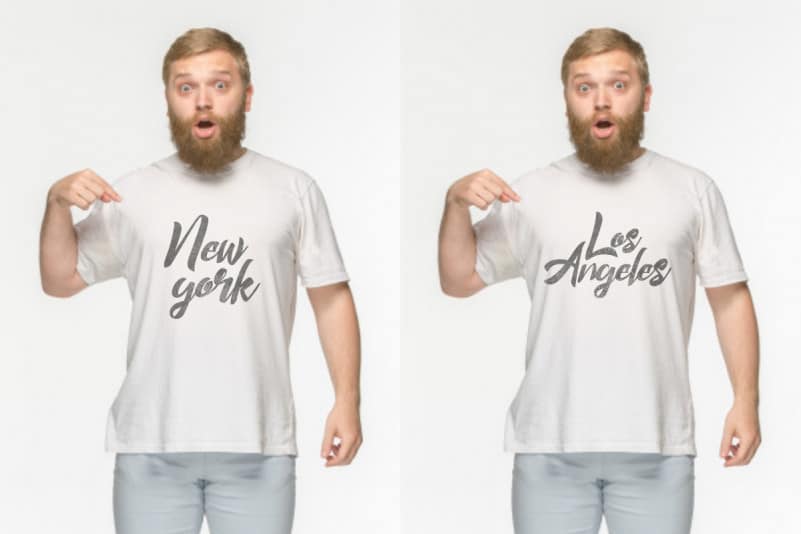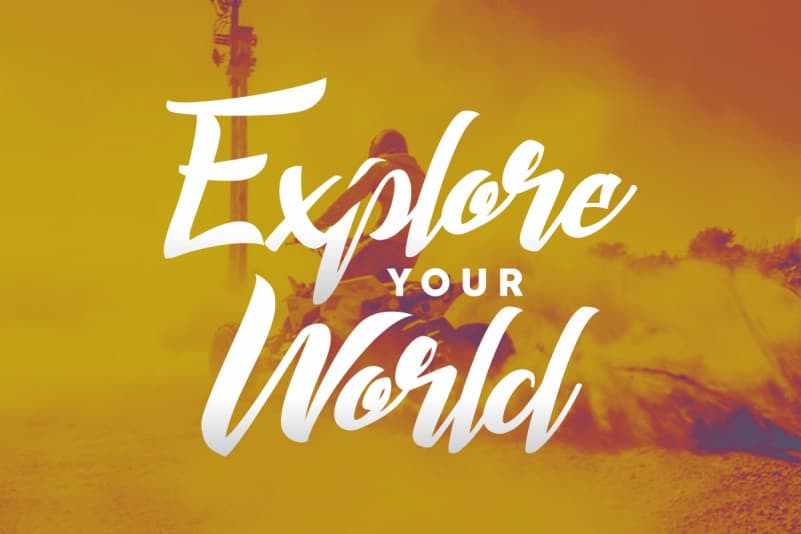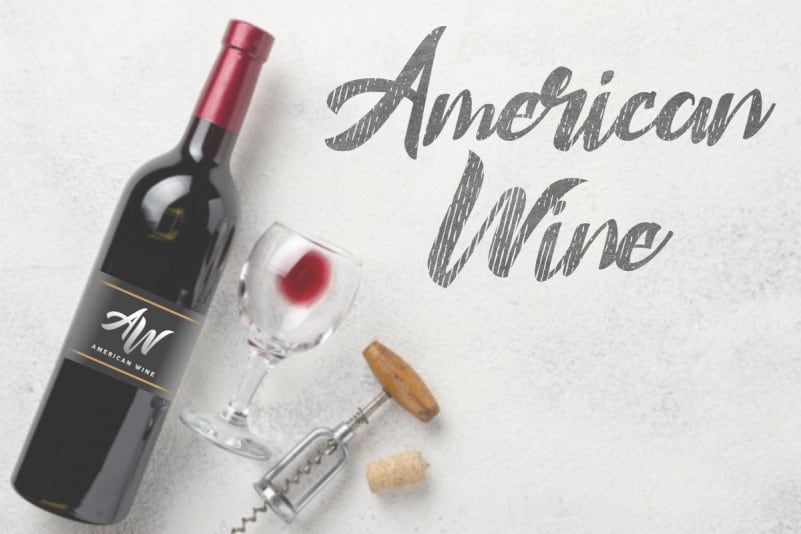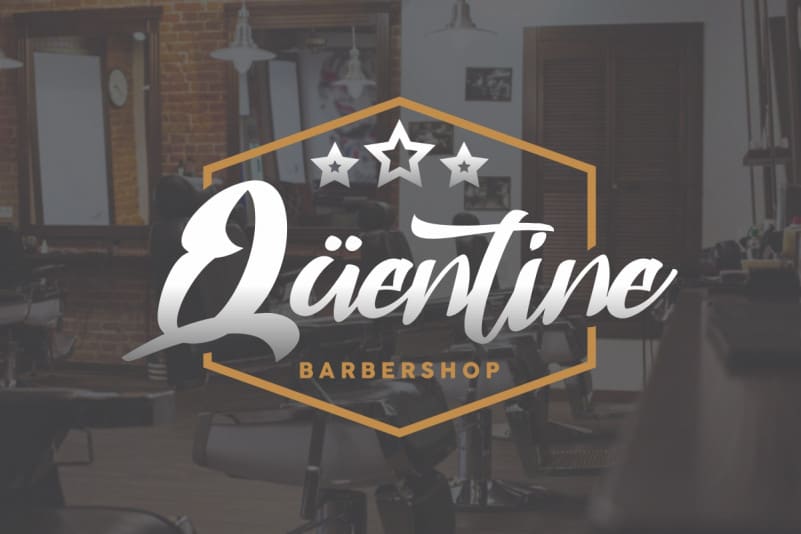
Headsound Brush Font
Headsound Brush Font is a calligraphy hand brush font with a simple and unique style. This font is crafted carefully in every its single scratch, created to look as close to a natural handwritten script so that it can create the perfect combination on each glyph. When we make this font, we really want to create a touch that is so free-flowing that it gives a natural impression on its use later. For example, if you want letter ‘s’ that has a flow sketch with letter ‘t’, you can find it in ‘st’ ligature glyph (just type in the text form below for trying). This awesome script is for anyone who are needing of elegance and stylish for their designs.
Headsound Brush Font includes full set of Uppercase and Lowercase Basic Characters, Numerals and Punctuation. Also it contains ligatures and a lot of stylistic alternates characters to perfectly make natural calligraphy look that add more beautiful and aesthetic fonts to perfect your extraordinary project.